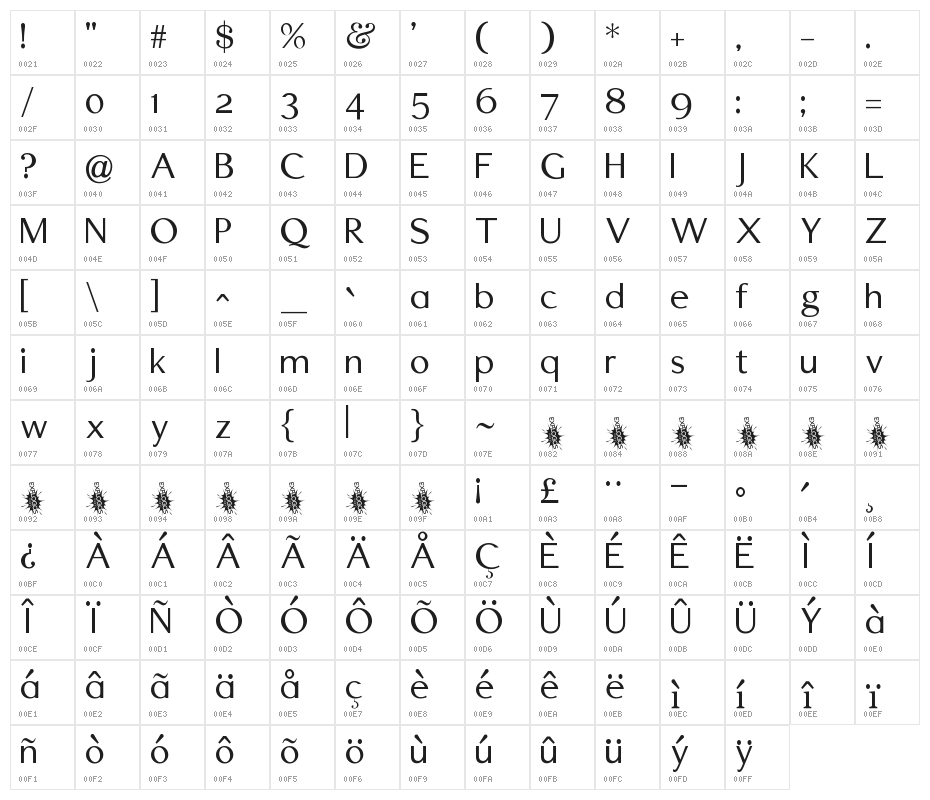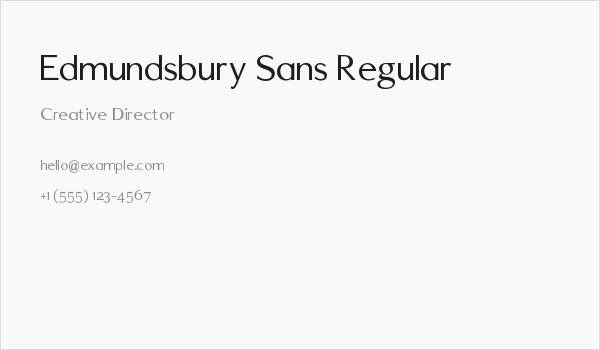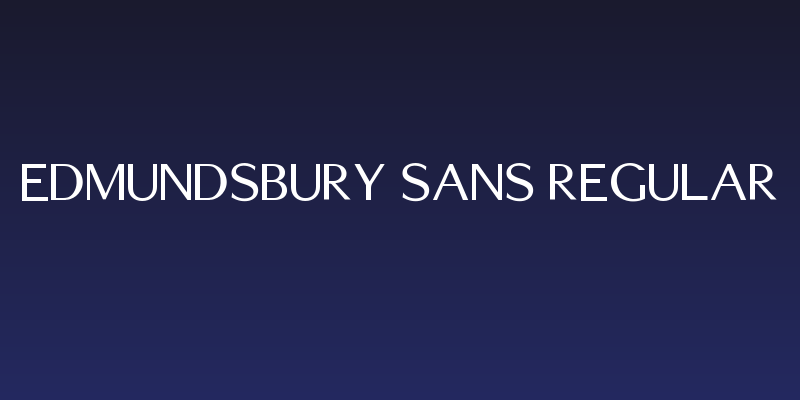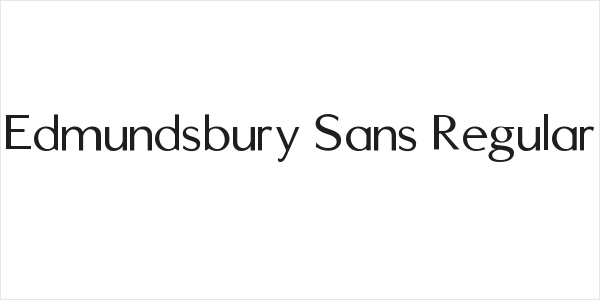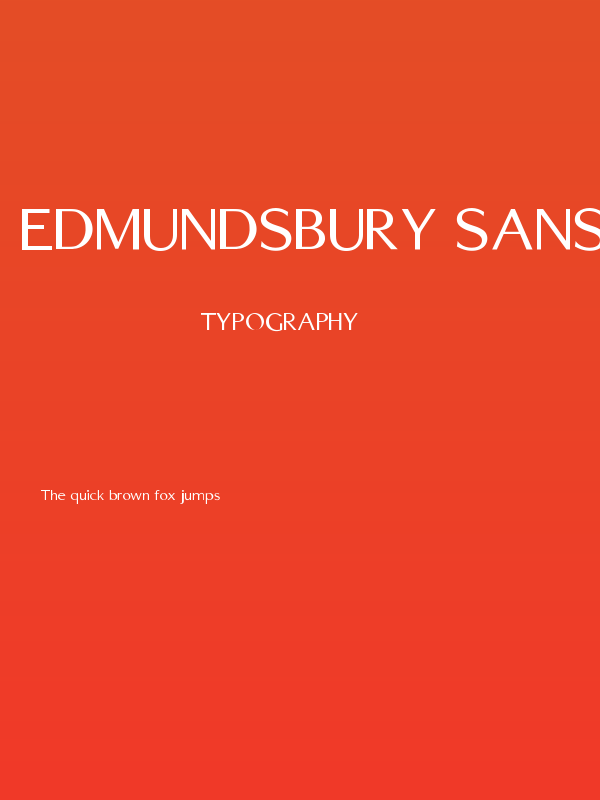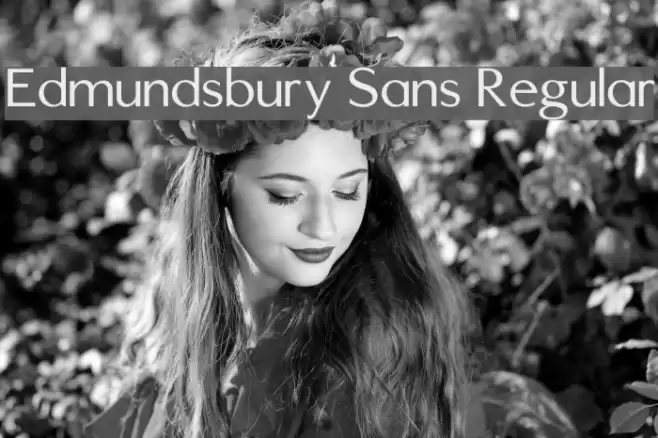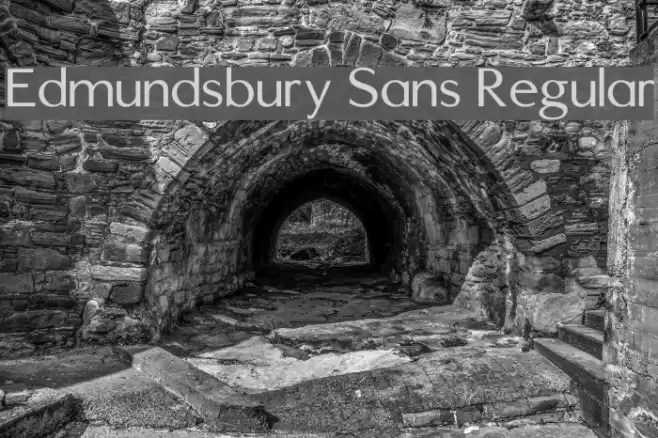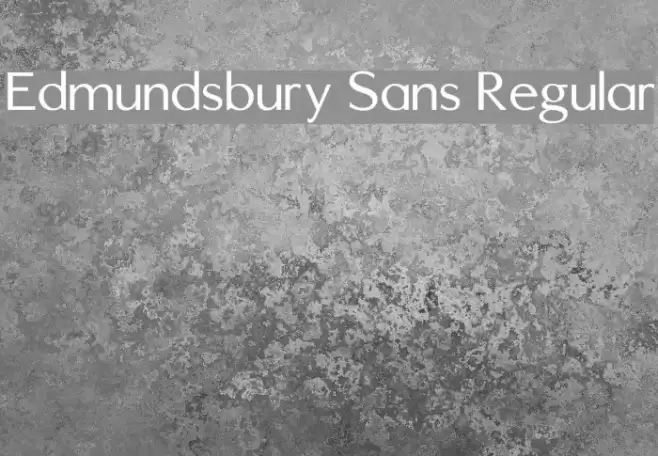
Edmundsbury Sans Regular Font
Edmundsbury Sans Regular Description
This typeface is a clean and modern sans-serif font characterized by its geometric shapes and smooth curves. The letters are evenly spaced, providing a balanced and harmonious appearance. The uppercase letters are bold and assertive, while the lowercase letters maintain a friendly and approachable feel. The numerals are clear and legible, making them suitable for various applications. Special characters are well-integrated, maintaining the overall aesthetic of the font. Its simplicity and elegance make it versatile for both digital and print media.
| Use Case | Headlines, Body text, Logos |
| Proposed Projects | Ideal for branding, web design, advertising, and editorial layouts. |